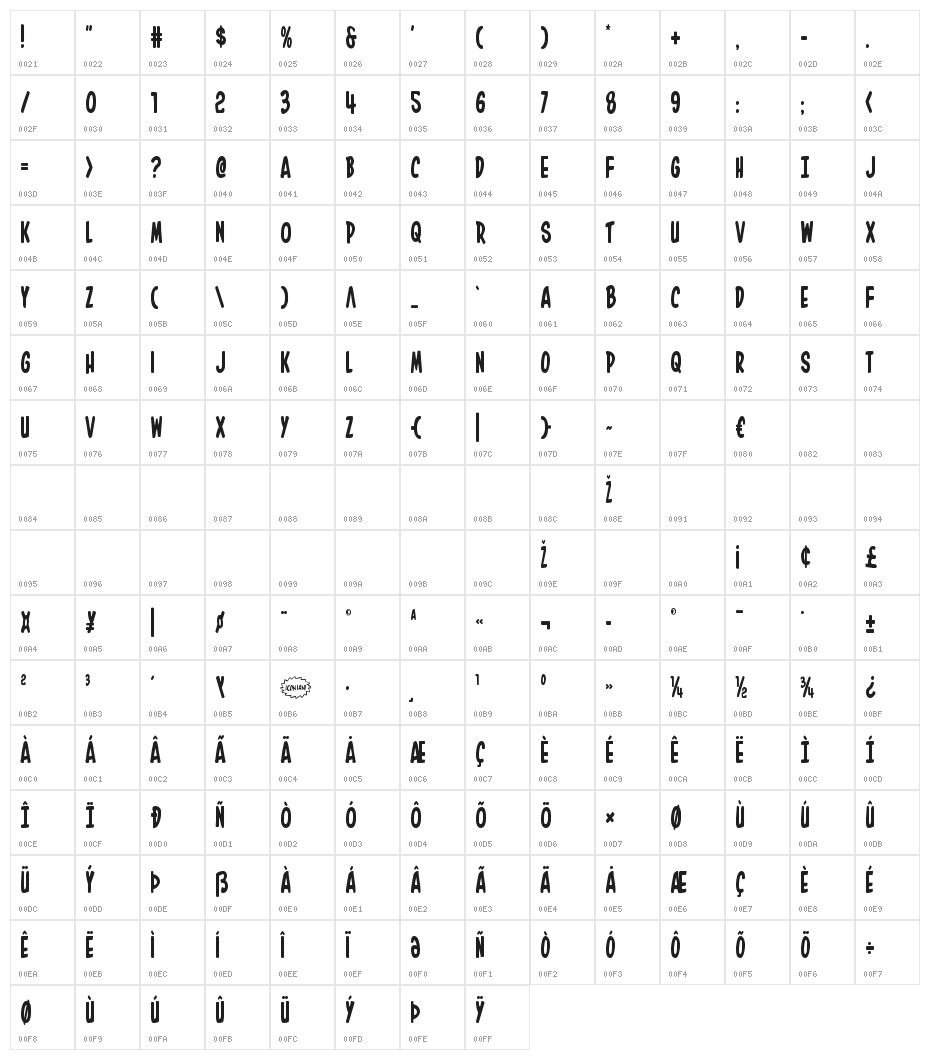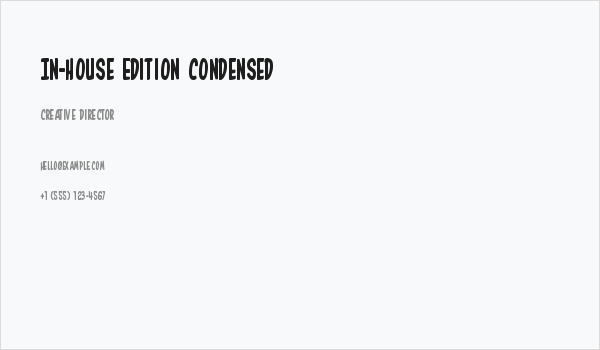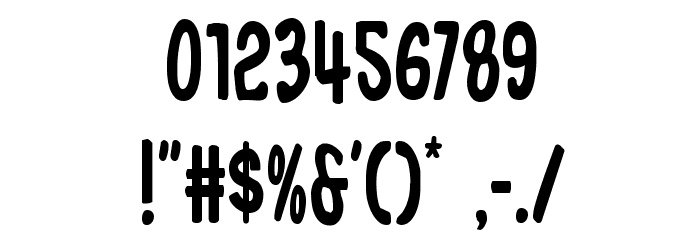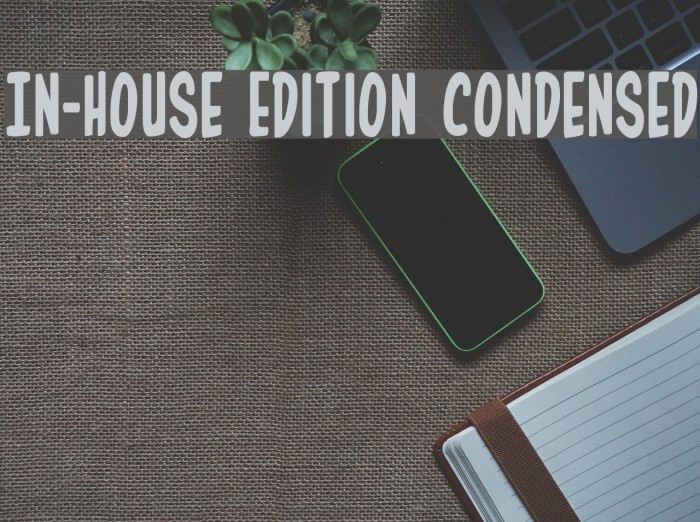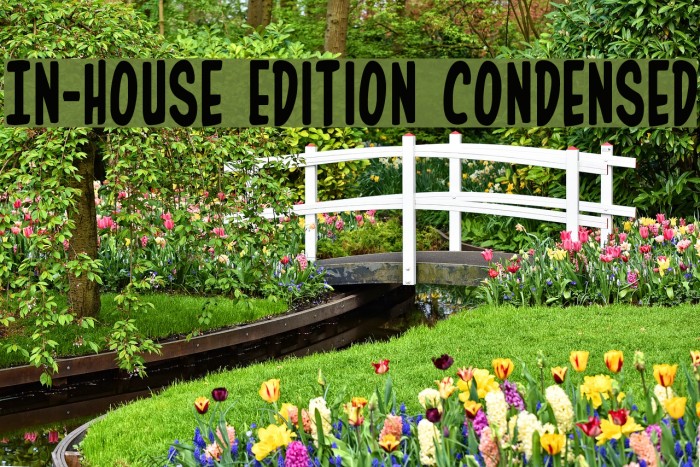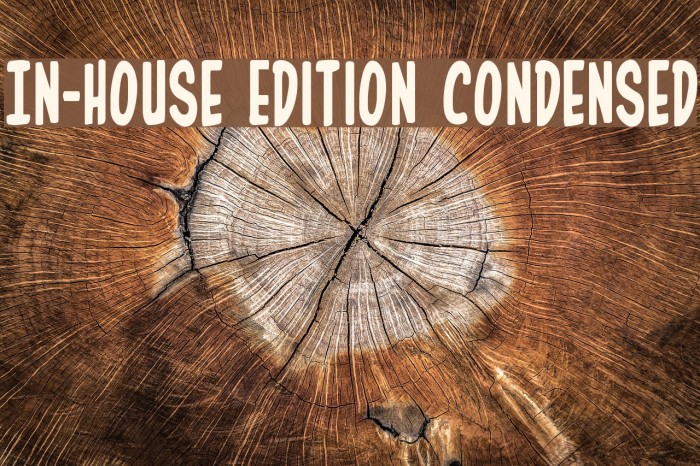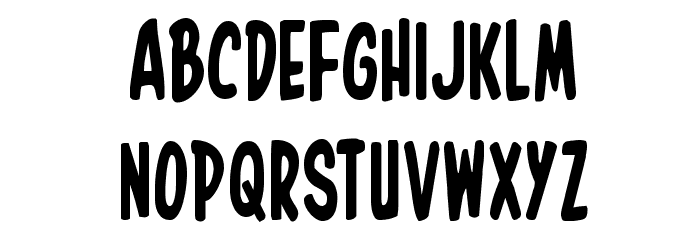
In-House Edition Condensed Font
In-House Edition Condensed Description
This font features a bold and playful style with a condensed width, giving it a unique and eye-catching appearance. The characters are rounded and slightly irregular, adding a whimsical touch to the overall design. The uppercase and lowercase letters maintain a consistent height, while the numbers and special characters are designed to match the playful aesthetic. This font is perfect for projects that require a fun and informal look, such as children's books, posters, or branding for creative businesses.
| Overall Style | Playful and Whimsical |
| Proposed Projects | Ideal for children's books, playful posters, creative branding, and informal invitations. |